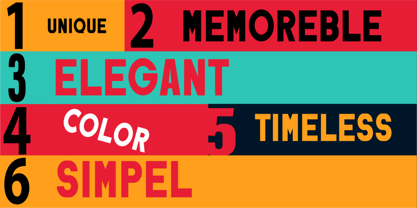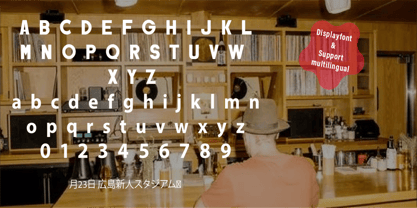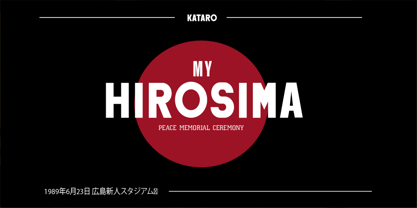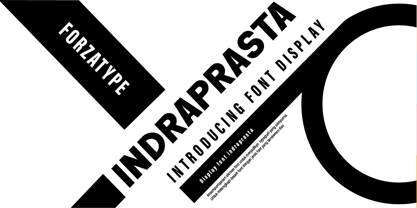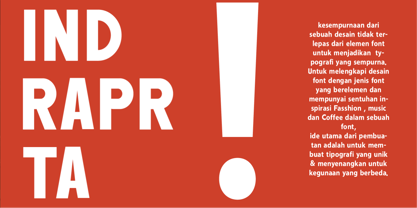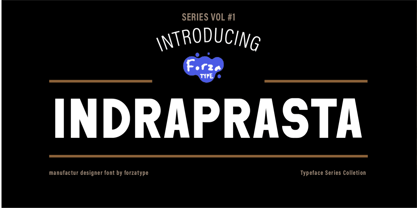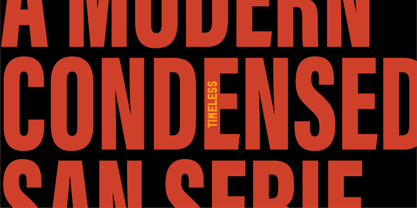
Indraprasta
The Indraprasta Font Family was designed by Angga Mahardika and published by Donny Ramadhan. Indraprasta contains 1 styles. More about this family
Proudly presenting Indraprasta, a typeface by Forzatype.
Indraprasta is a clean sans-serif font inspired by strong, confident letterforms.
It’s designed to blend easily with other design elements, giving your work a modern, elegant, and bold character.
The font comes with alternates and ligatures that you can mix and match to create more eye-catching and expressive layouts.
Indraprasta also supports multilingual accents, making it flexible for global use.
Separated in a regular version,
Indraprasta is a great choice for a wide range of creative projects—logos, headlines, covers, branding, displays, magazines, and more.
If you’re looking to elevate your design or branding with a classy and modern feel, Indraprasta is ready to go.
Features:
* Standard characters A–Z and a–z
* Numbers and functional glyphs
* Alternates and ligatures
* Multilingual support